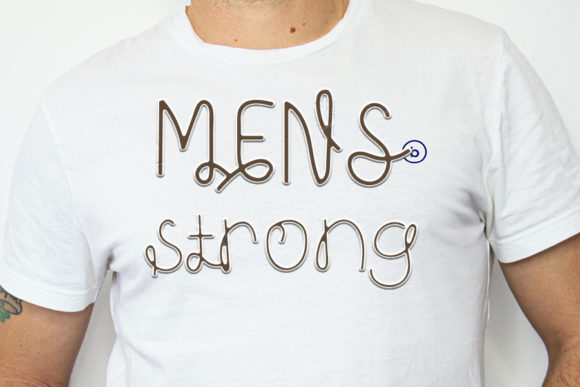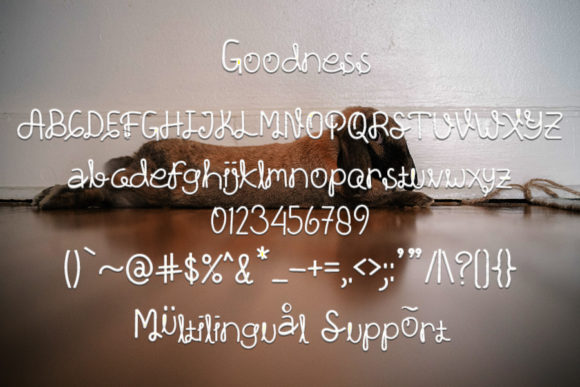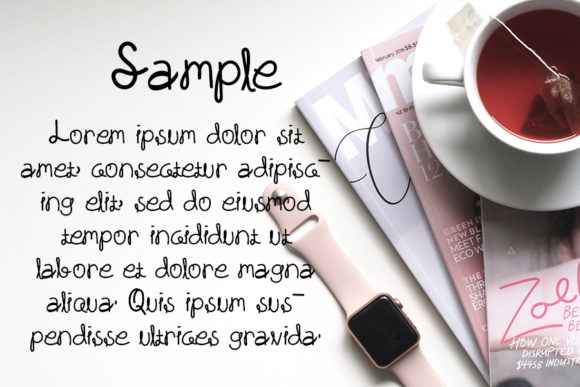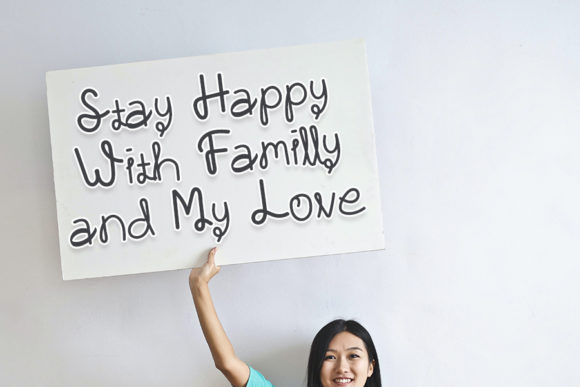
Introducing Goodness Font: The Ultimate Display Font for Your Creative Projects
Are you tired of using the same old fonts for your designs? Look no further! Goodness Font is here to revolutionize your creative projects with its simplicity, cleanliness, and jolly spirit. This versatile display font is perfect for designers and crafters who want to add a touch of elegance and playfulness to their work.
What Makes Goodness Font Special?
Goodness Font is a simple, all-round, and clean display font that is designed to brighten up each of your designs. Its flexibility and unique characteristics make it an excellent choice for a wide range of projects, from branding and advertising to packaging and digital media. With Goodness Font, you can create stunning visuals that capture the attention of your audience and leave a lasting impression.
Key Features of Goodness Font
- Simple and Clean Design: Goodness Font boasts a clean and simple design that makes it easy to read and versatile for various applications.
- All-Round Flexibility: This font is designed to work well in different contexts, from headlines and titles to body text and captions.
- Jolly Spirit: Goodness Font has a playful and friendly vibe that adds a touch of warmth and approachability to your designs.
- Endless Variations: With Goodness Font, you can experiment with different styles, sizes, and colors to create unique and captivating visuals.
Why Designers and Crafters Love Goodness Font
Goodness Font is a favorite among designers and crafters for several reasons. Firstly, its simplicity and cleanliness make it easy to pair with other fonts and design elements. Secondly, its jolly spirit adds a touch of personality and whimsy to designs, making them more engaging and memorable. Finally, the font’s flexibility allows designers to experiment with different styles and applications, from bold and playful to elegant and sophisticated.
How to Use Goodness Font in Your Designs
Goodness Font is incredibly easy to use and can be applied to a wide range of design projects. Here are some ideas to get you started:
- Branding and Logo Design: Use Goodness Font to create a unique and memorable logo that reflects your brand’s personality and values.
- Social Media Graphics: Add a touch of playfulness and elegance to your social media graphics with Goodness Font.
- Packaging Design: Use Goodness Font to create eye-catching packaging that stands out on store shelves.
- Digital Media: Apply Goodness Font to your digital media projects, such as videos, presentations, and websites, to add a touch of sophistication and style.
Tips and Tricks for Getting the Most Out of Goodness Font
To get the most out of Goodness Font, here are some tips and tricks to keep in mind:
- Experiment with Different Sizes and Styles: Don’t be afraid to experiment with different sizes and styles to find the perfect combination for your design.
- Pair with Other Fonts: Goodness Font pairs well with other fonts, so don’t be afraid to try pairing it with different fonts to create a unique look.
- Use Color Effectively: Use color to add depth and interest to your design, and to make Goodness Font stand out.
In conclusion, Goodness Font is a versatile and elegant display font that is perfect for designers and crafters who want to add a touch of simplicity, cleanliness, and playfulness to their designs. With its flexibility, jolly spirit, and endless variations, Goodness Font is sure to brighten up each of your designs and leave a lasting impression on your audience. So why wait? Download Goodness Font today and start creating stunning visuals that capture the attention of your audience!